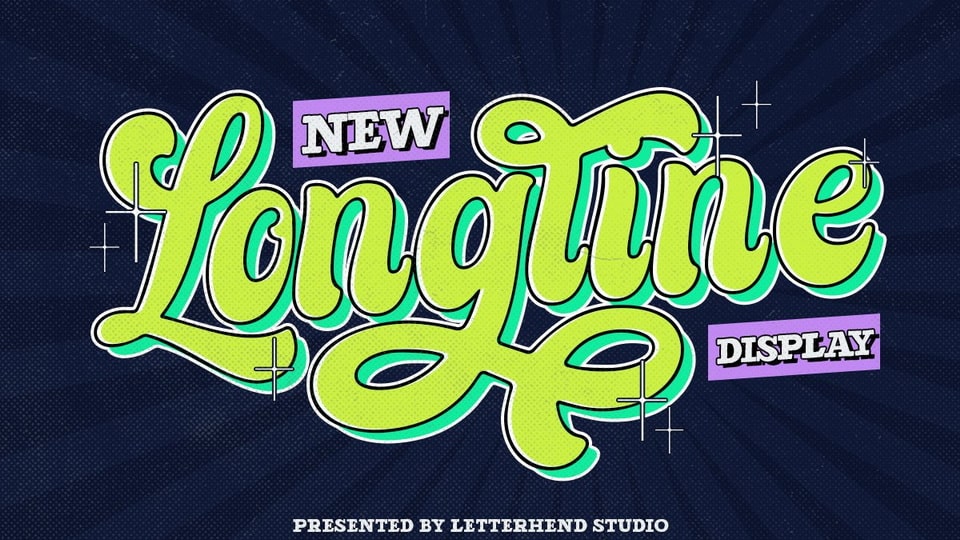
Download Longline font, a retro bold script that will bring you back to the 60s. Whether you are using it for cartoon-related designs, games, quotes, titles, posters, or just any creation that requires a touch of joy, Longline font is a great choice.